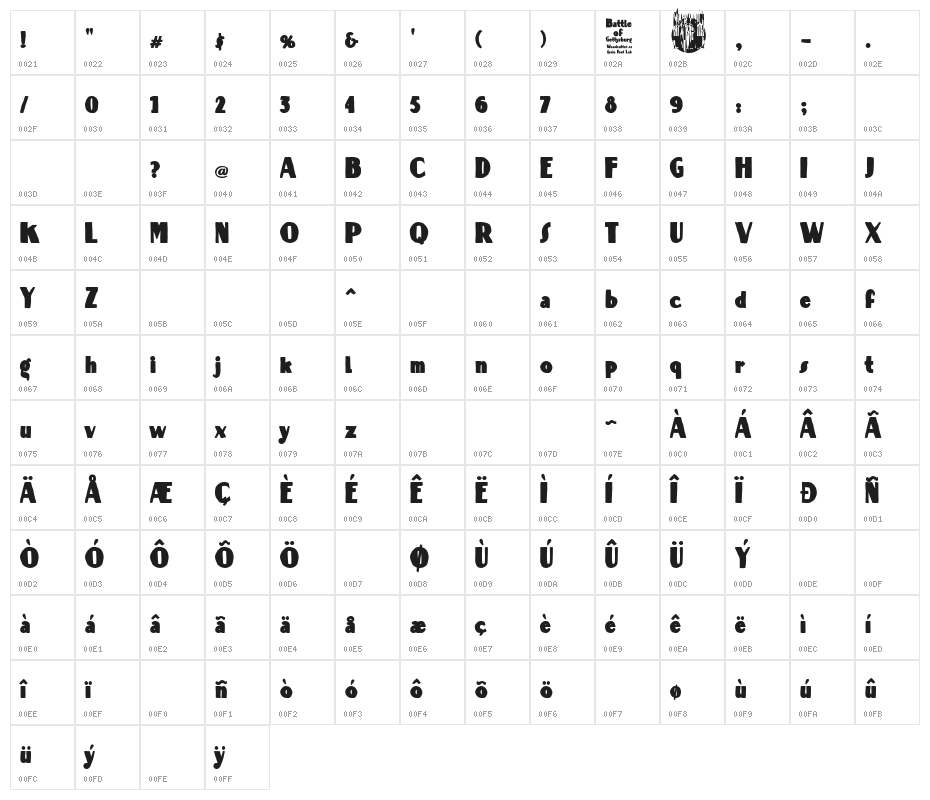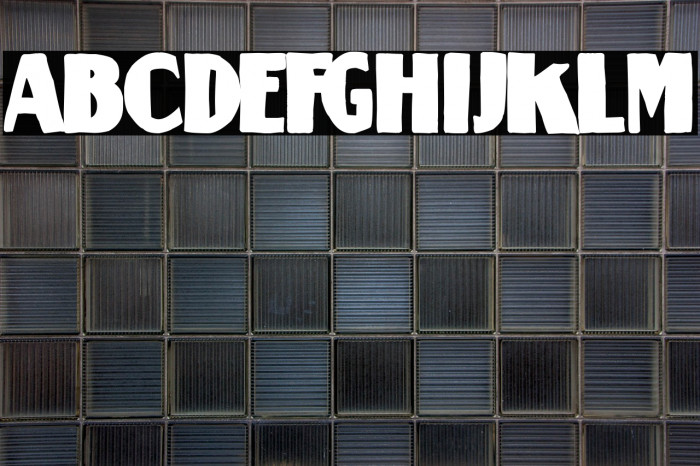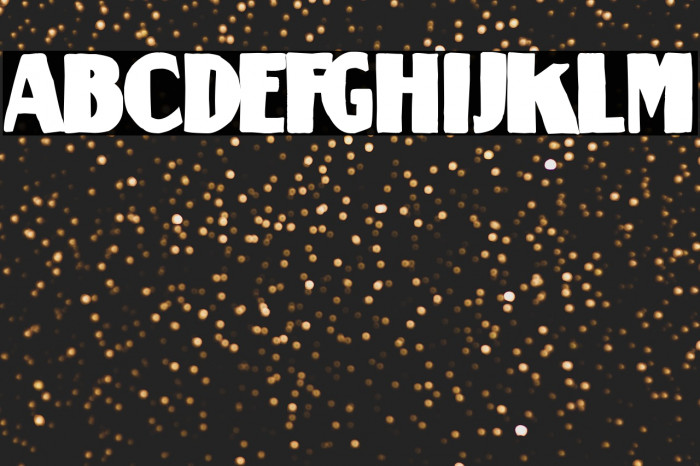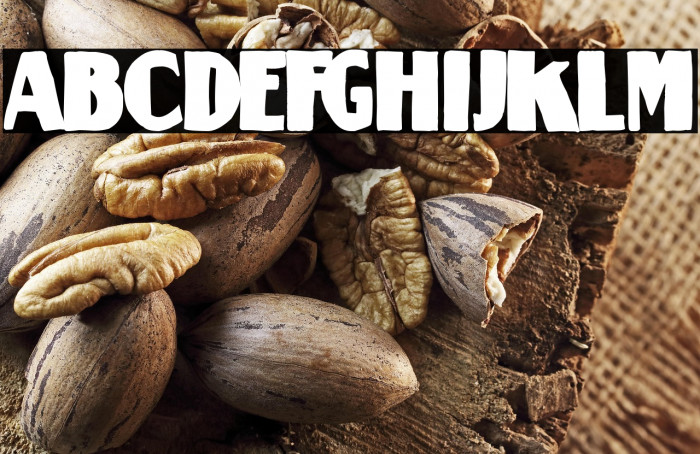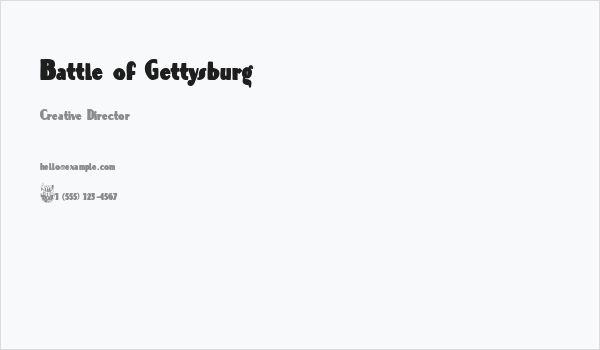
Battle of Gettysburg Font
Battle of Gettysburg Description
This font features bold, thick strokes with a slightly uneven and hand-crafted appearance, giving it a rustic and historical feel. The uppercase letters are robust and commanding, while the lowercase letters maintain a consistent weight, contributing to a cohesive look. The numerals are similarly bold, ensuring visibility and impact. Special characters are included, maintaining the same bold style, which makes them stand out effectively. The overall design suggests a connection to historical or vintage themes, making it suitable for projects that require a strong, impactful typeface.
| Proposed Projects | Ideal for historical-themed posters, vintage branding, book covers, and event promotions. |